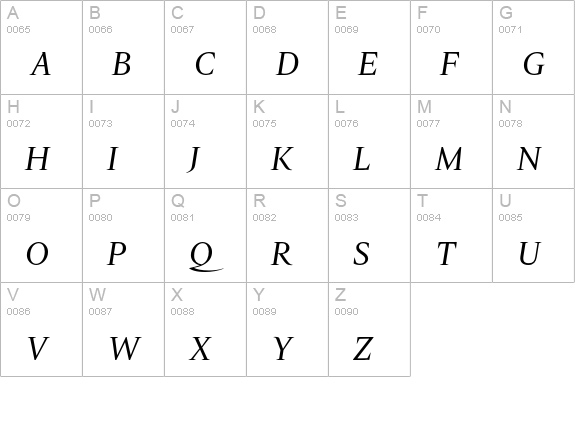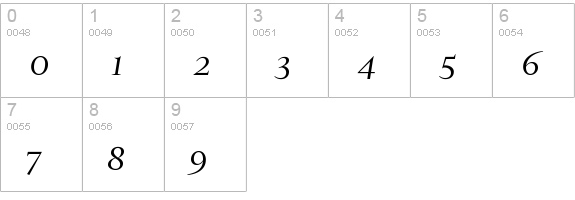
Luxury Text Italic Font Details
Luxury Text Italic is a distinctive, italic variant in the Luxury typeface family \xE2\x80\x94 well suited to design and typography projects.
Luxury Text Italic font exudes elegance and sophistication with its sleek and graceful appearance. The italicized design adds a touch of flair and refinement to any project, making it perfect for luxury branding, editorial designs, and high-end products. The delicate curves and sharp angles of this font create a sense of modern luxury that is sure to captivate and impress your audience. What's even better is that Luxury Text Italic font is available for free download at FontsMarket.com. This means you can easily access and use this exquisite font in your projects without any cost. Don't miss out on the opportunity to elevate your designs with this luxurious typeface that is both stylish and accessible. Download Luxury Text Italic font today and add a touch of sophistication to your creations.